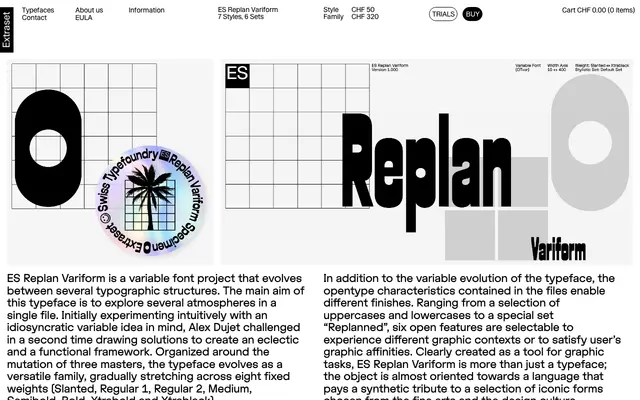
ES Replan Variform
Extraset · Alex Dujet
A variable font by Alex Dujet that shifts across three typographic masters and eight weight stops, with six OpenType alternate sets referencing fine arts and design culture.
Designed by Alex Dujet for Extraset, it organises three interpolation masters into a continuous variable axis spanning Slanted through Extrablack, with each stop offering a distinct typographic atmosphere in a single file. Six OpenType feature sets including alternate uppercase and lowercase forms and a special 'Replanned' set allow further graphic variation beyond weight. The typeface is explicitly positioned as a graphic tool rather than a text workhorse, paying tribute to iconic forms drawn from art and design history.
A variable font that mutates across three masters through eight weight stops, with alternate character sets drawing on fine arts and design culture references; its eclectic, idiosyncratic structure places it firmly in the display/experimental category rather than any conventional sans or serif tradition.